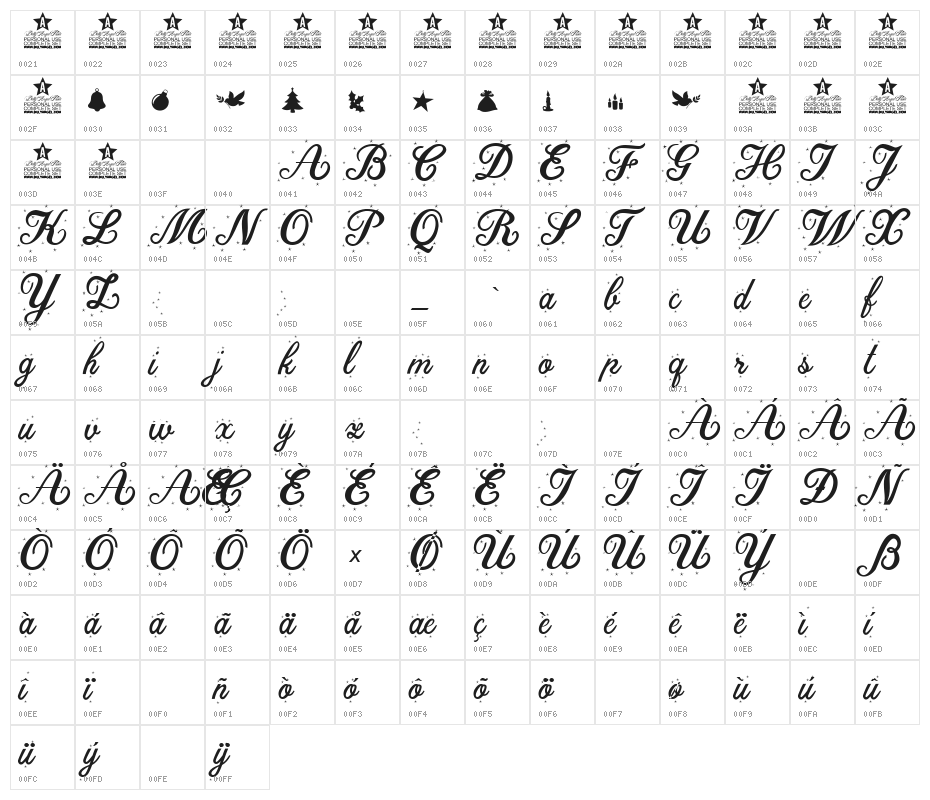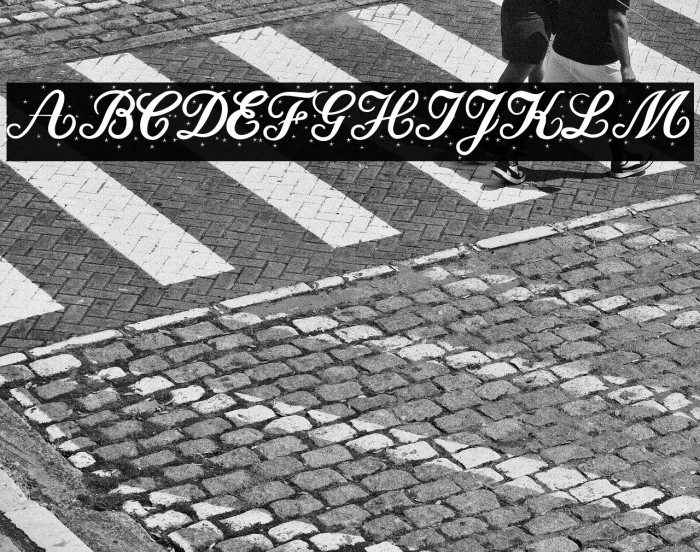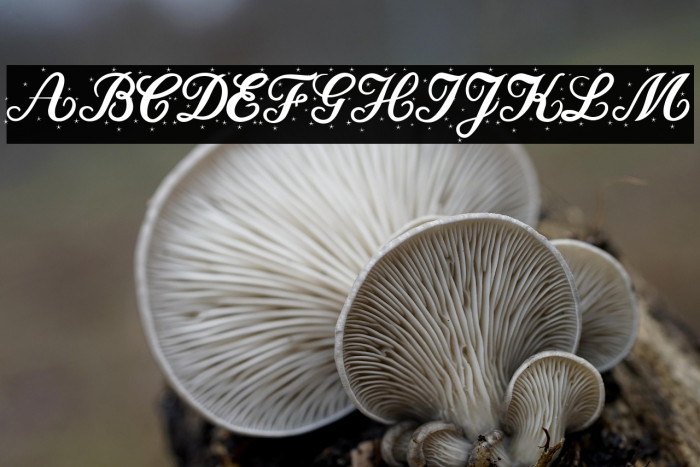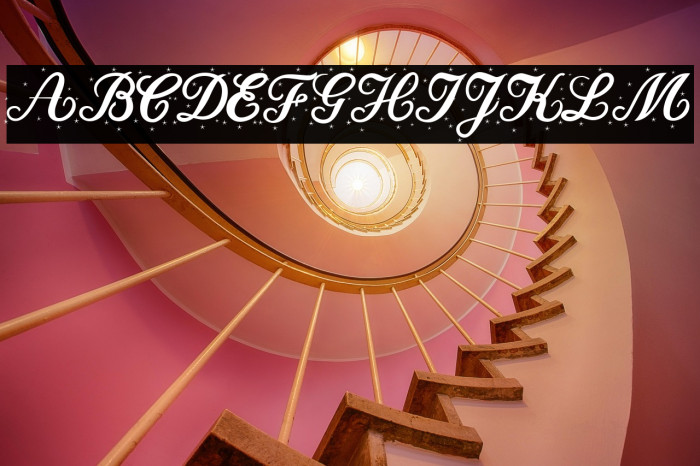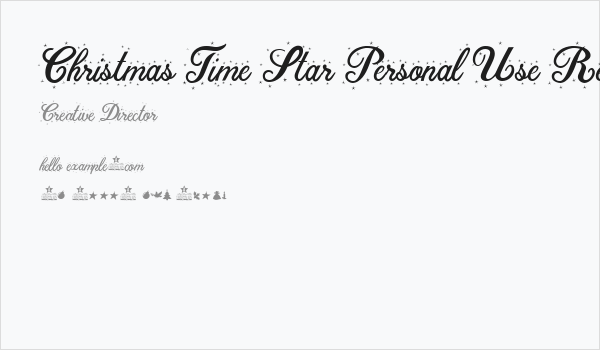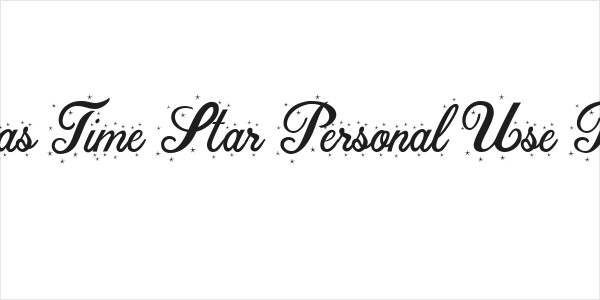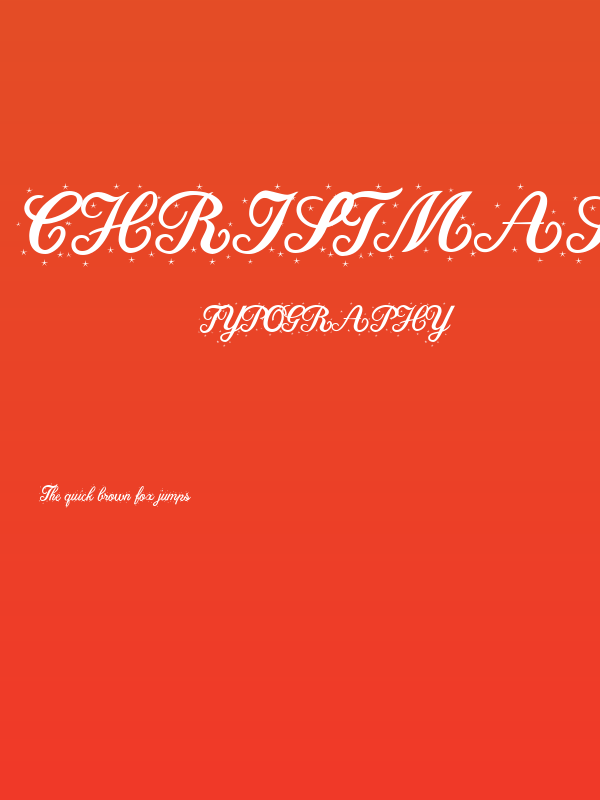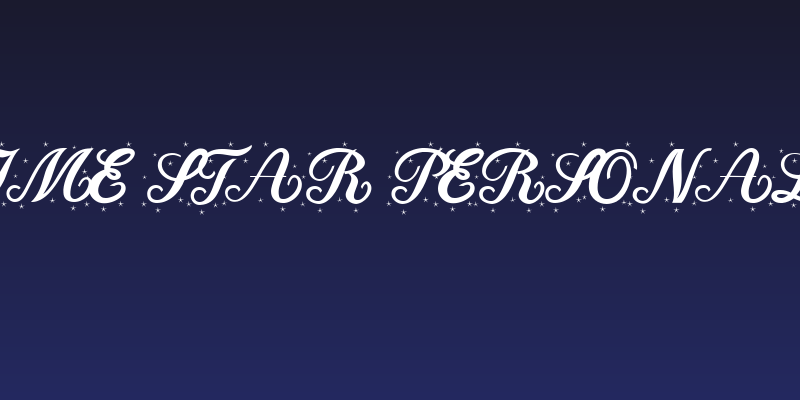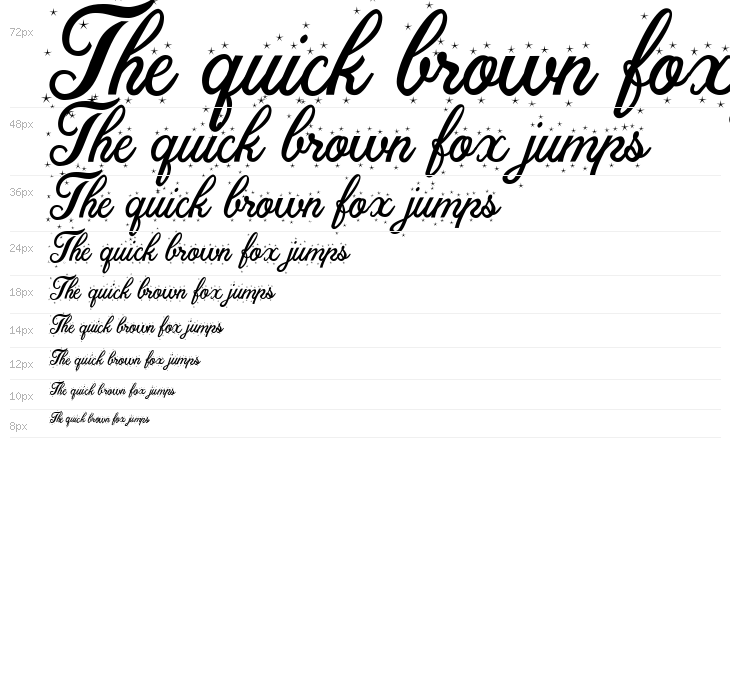
Christmas Time Star Personal Use Regular Font
Christmas Time Star Personal Use Regular Description
This decorative font features a whimsical, festive style perfect for holiday-themed projects. Each letter is adorned with small star-like embellishments, adding a playful and magical touch. The uppercase letters exhibit elegant, flowing curves, while the lowercase letters maintain a smooth, cursive appearance. The font includes a variety of Christmas-themed symbols, such as bells, ornaments, and stars, enhancing its seasonal appeal. Its unique design captures the joyful spirit of the holidays, making it ideal for creating eye-catching invitations, greeting cards, and festive banners.